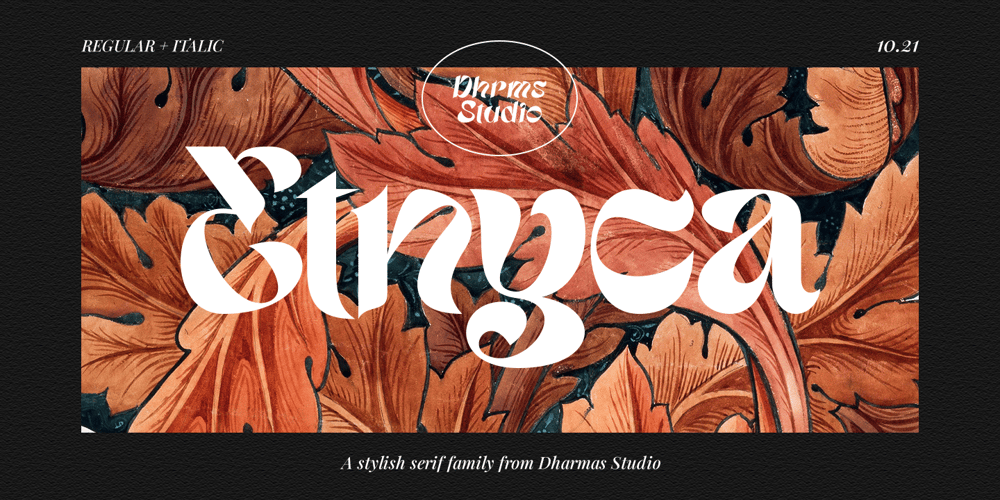
Etnyca
Etnyca font
Etnyca Font Family was designed by Ahmad Jamaludin and published by Ahmad Jamaludin. Etnyca contains 2 styles and family package options. Presenting new our font, EtnycaEtnyca – fearless and stylish typeface perfect for headlines for print and web. It’s modern, bold, and playful. Perfect if you want to add character to your project.Etnyca fits perfectly too into those nostalgic mood boards and vintage logos. It comes with Italic style, unique lower and uppercase plus numbers, punctuation & multilingual lettersFile Included : Unique letterforms Works on PC & Mac Simple Installations Accessible in Adobe Illustrator, Adobe Photoshop, Microsoft Word even work on Canva! PUA Encoded Characters Fully accessible without additional design software. Come and say hello over on Instagram! https://www.instagram.com/dharmas.studio/Dharmas Studio